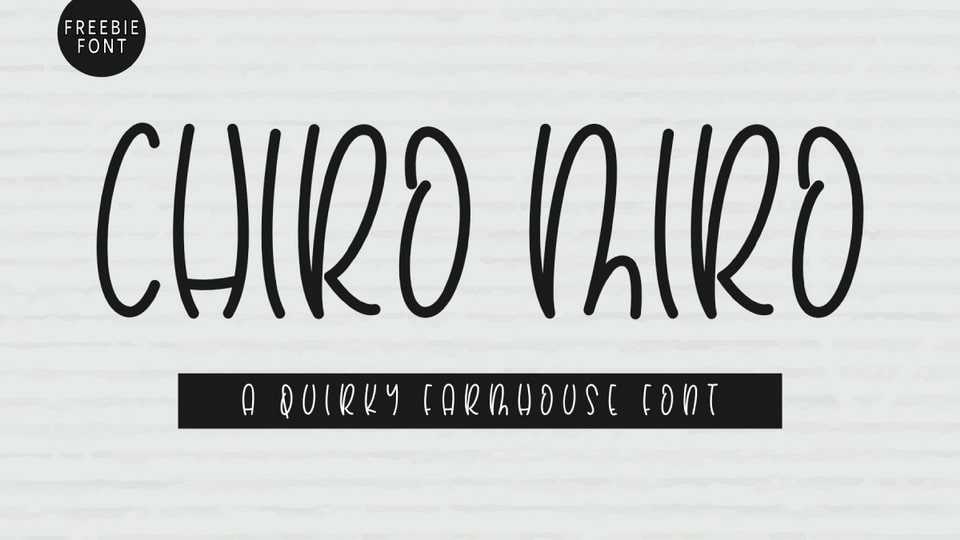
Download Chiro Miro font, a sweet, playful and friendly handwritten typeface. Its informal style and casual vibe will make Chiro Miro font a go-to choice for each of the creations that require a relaxed touch.